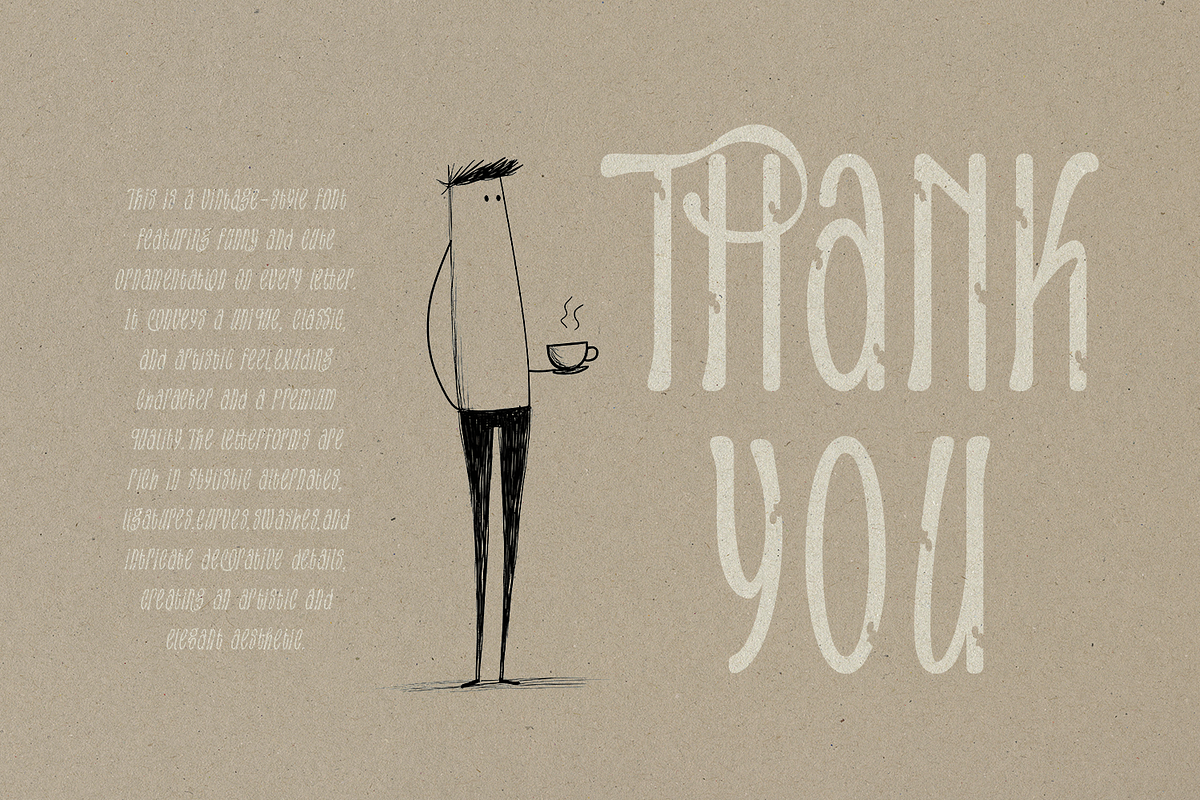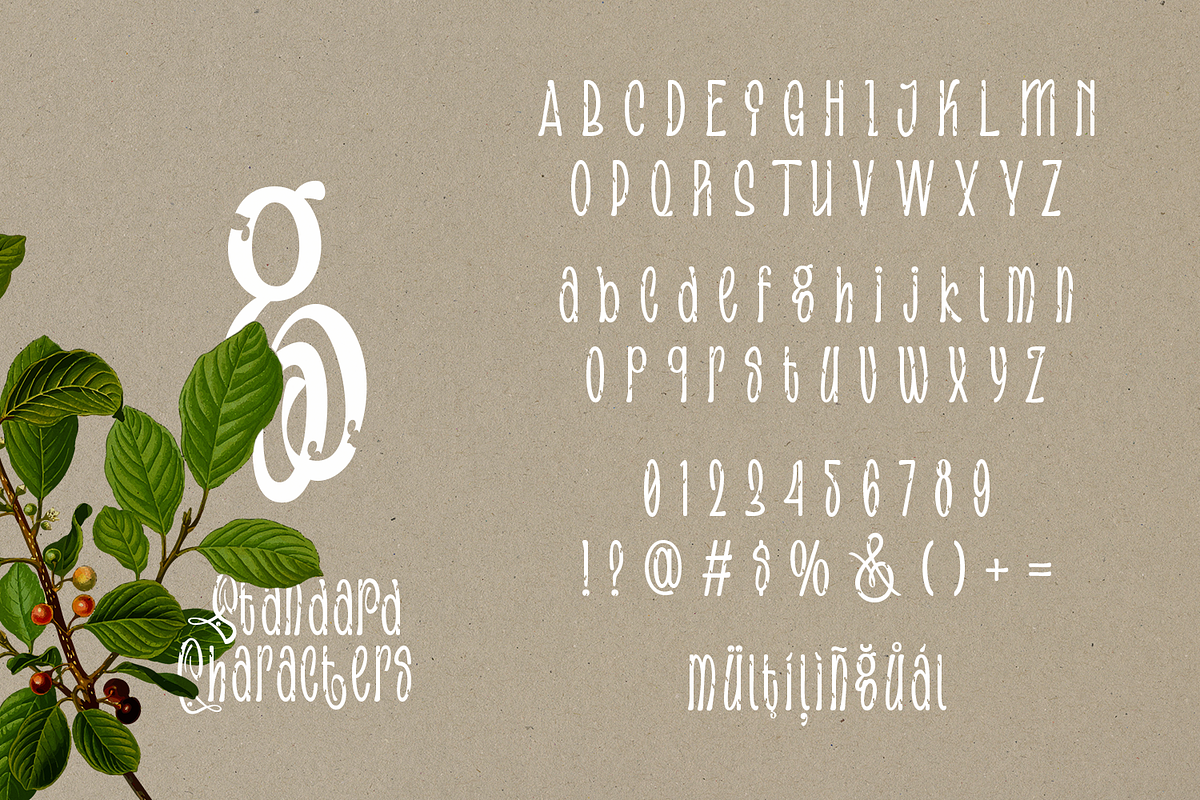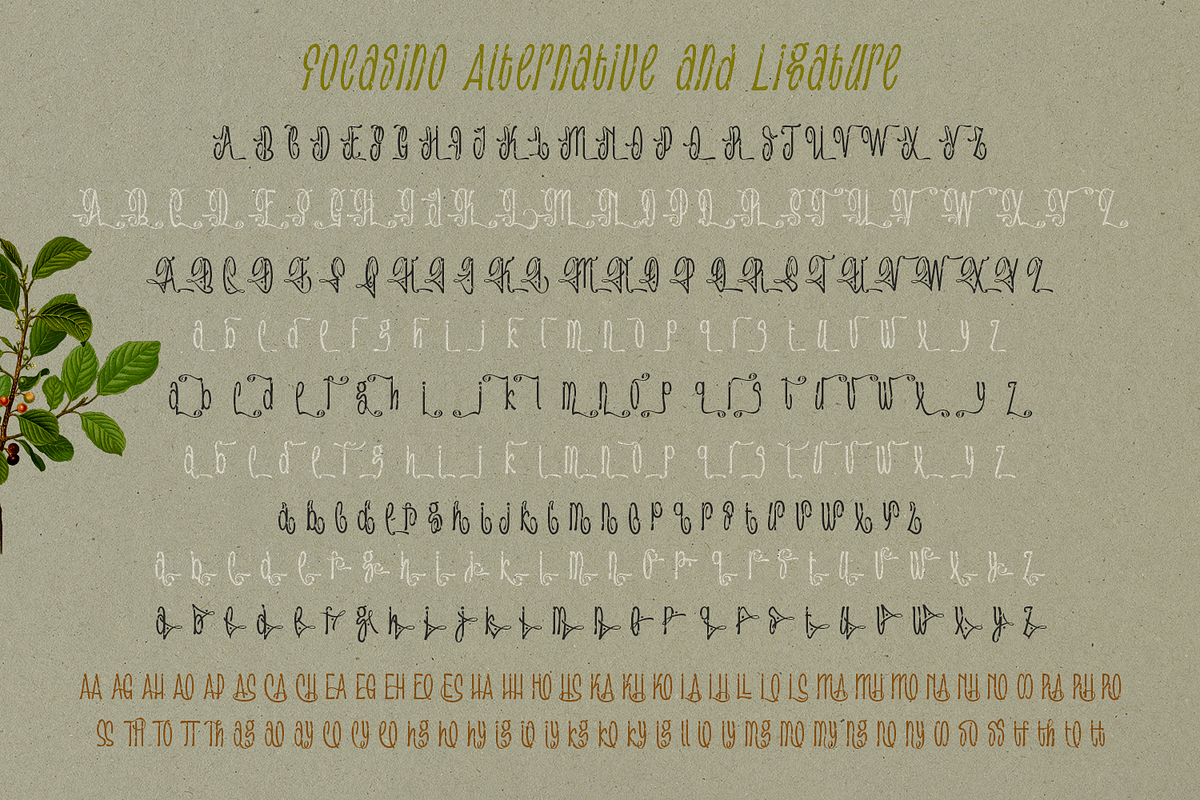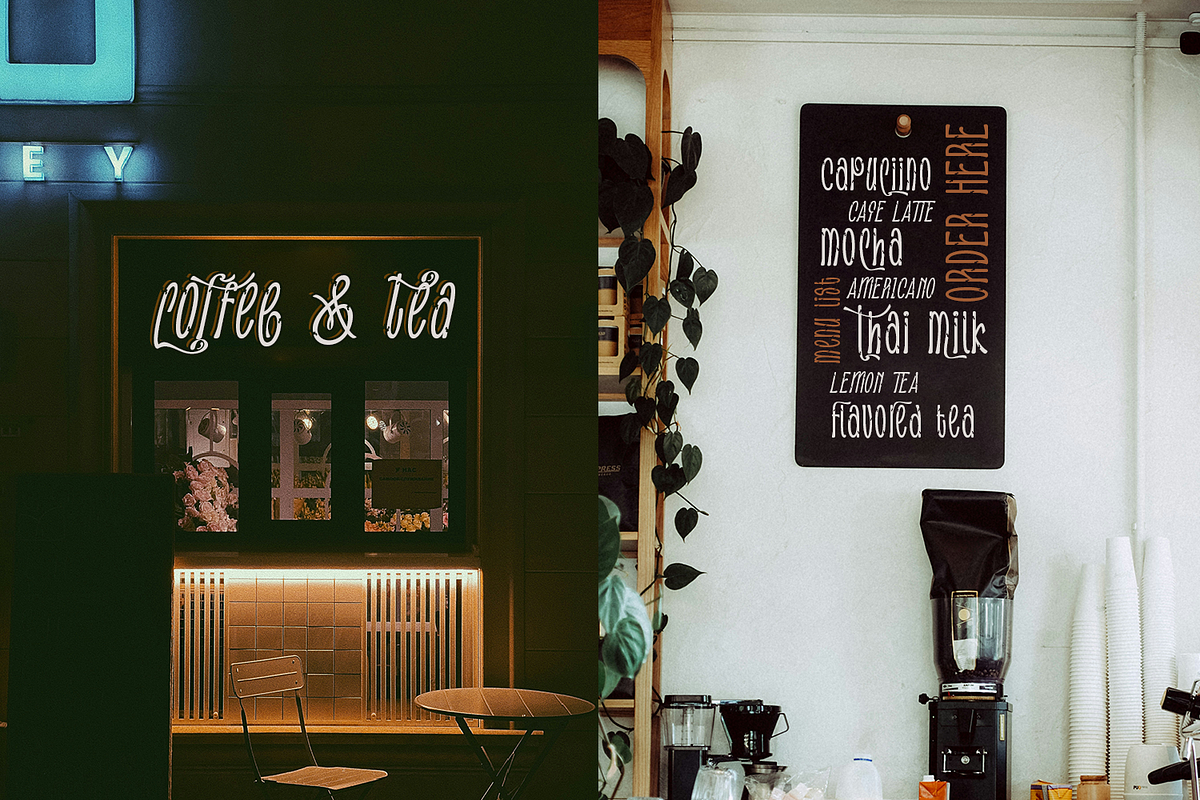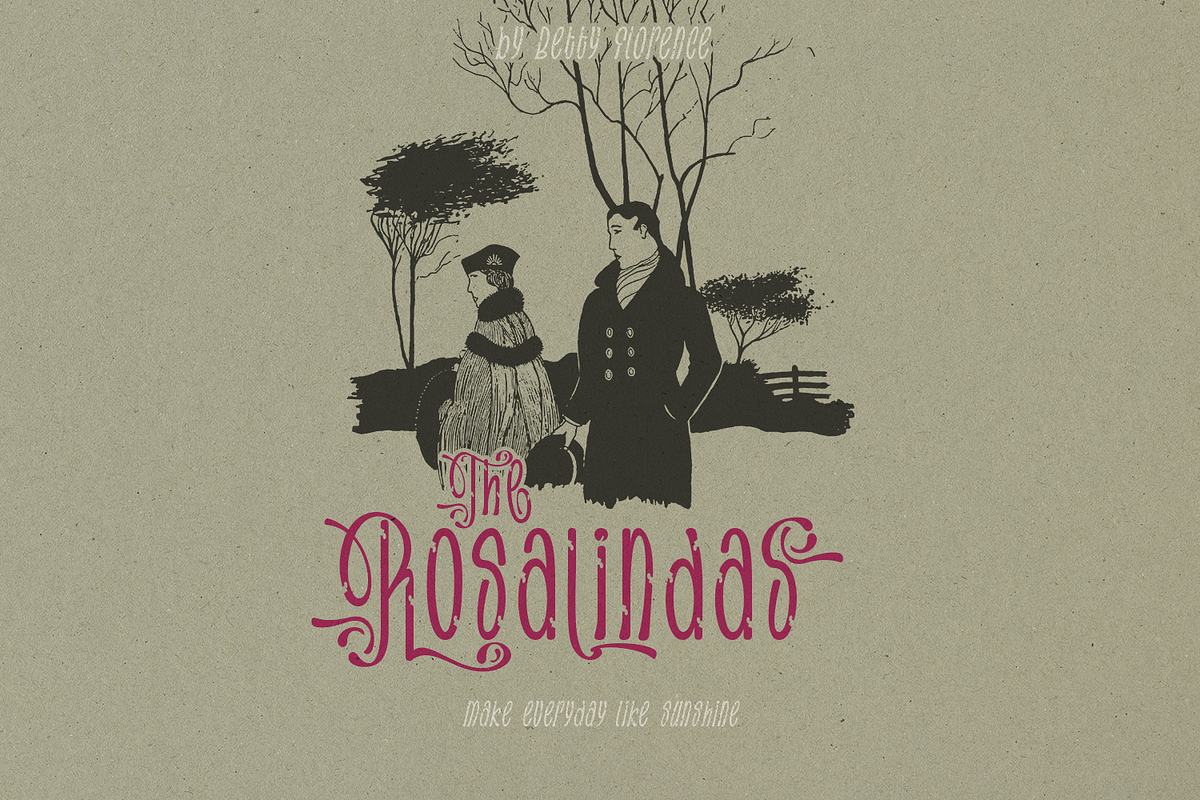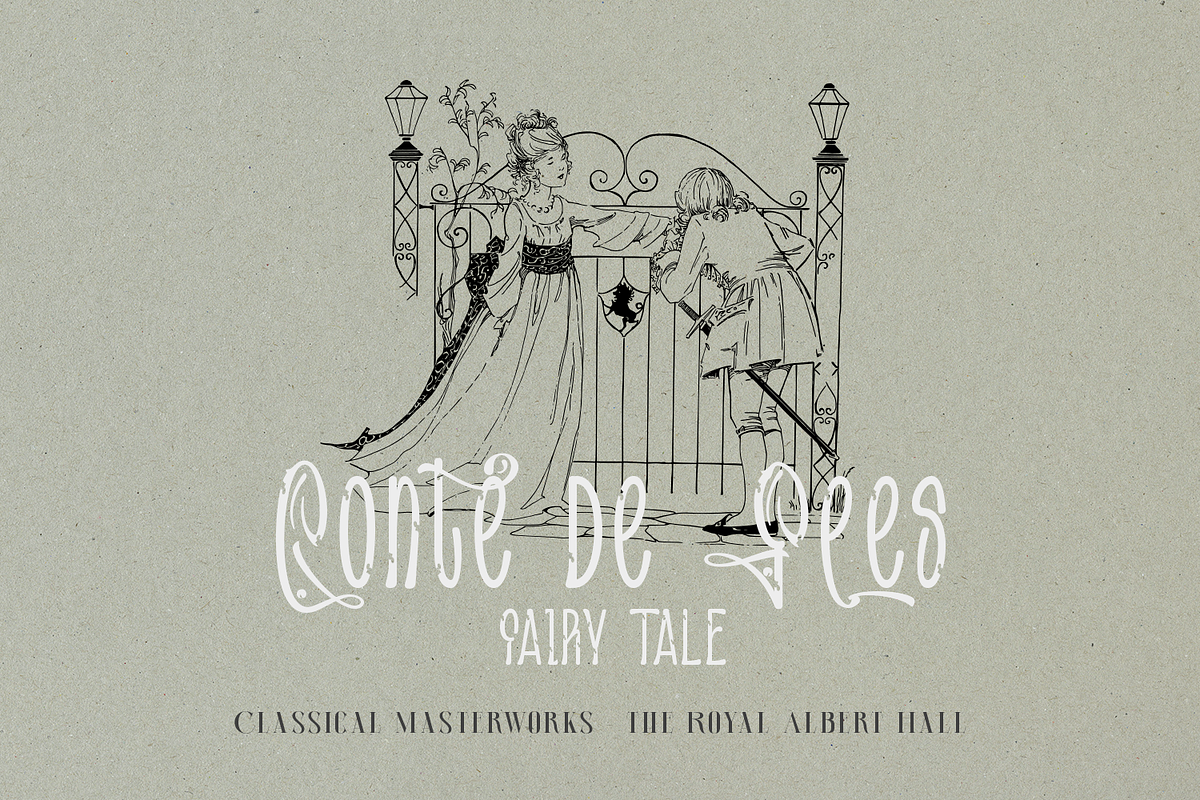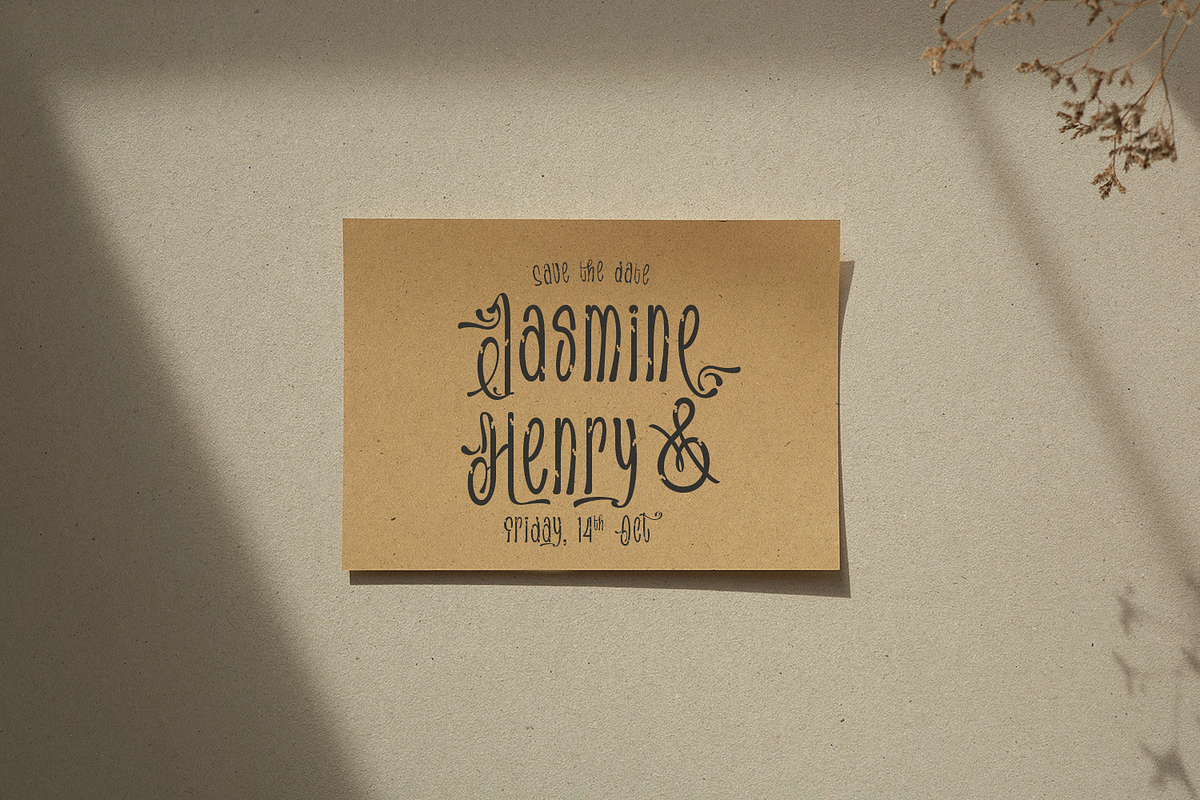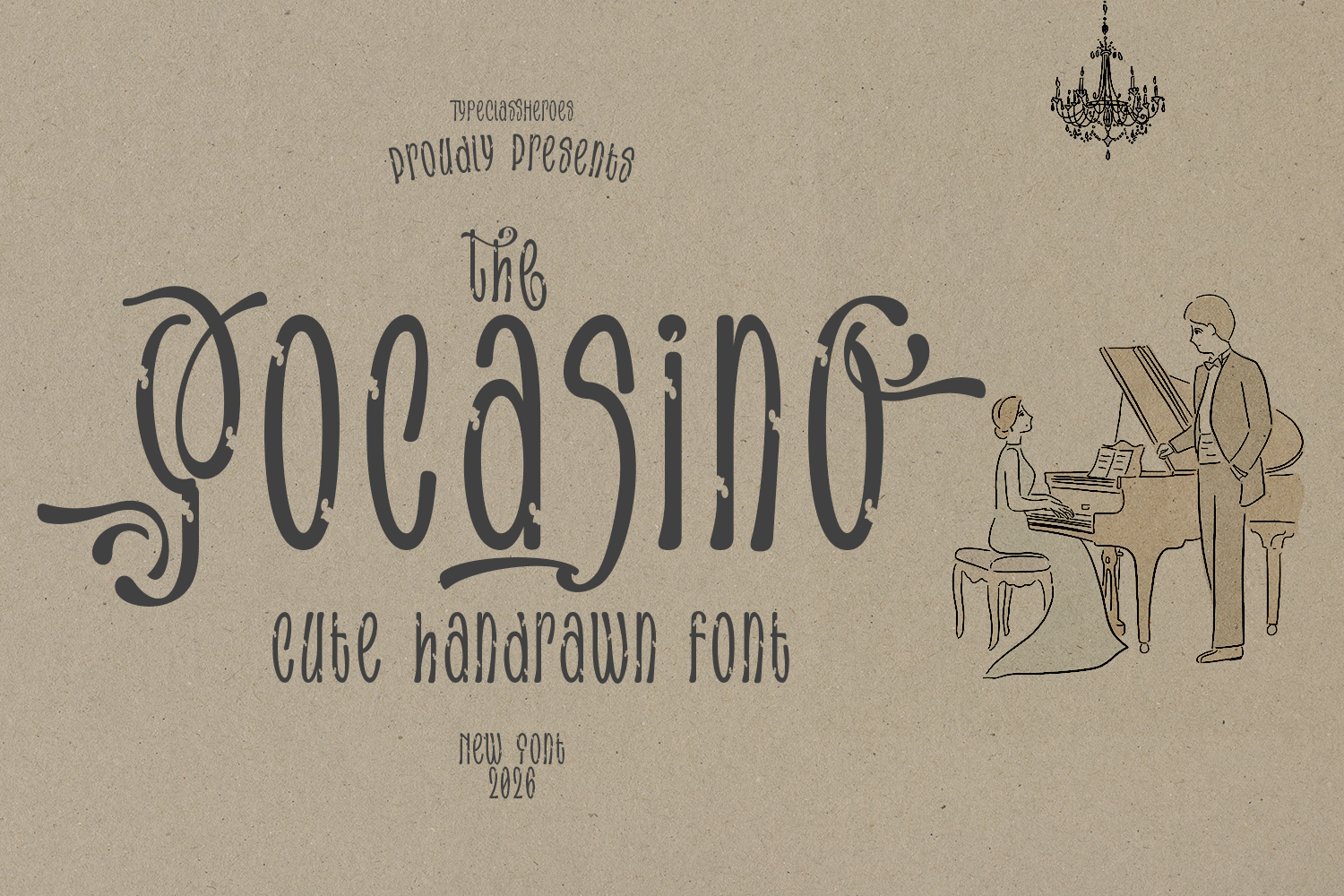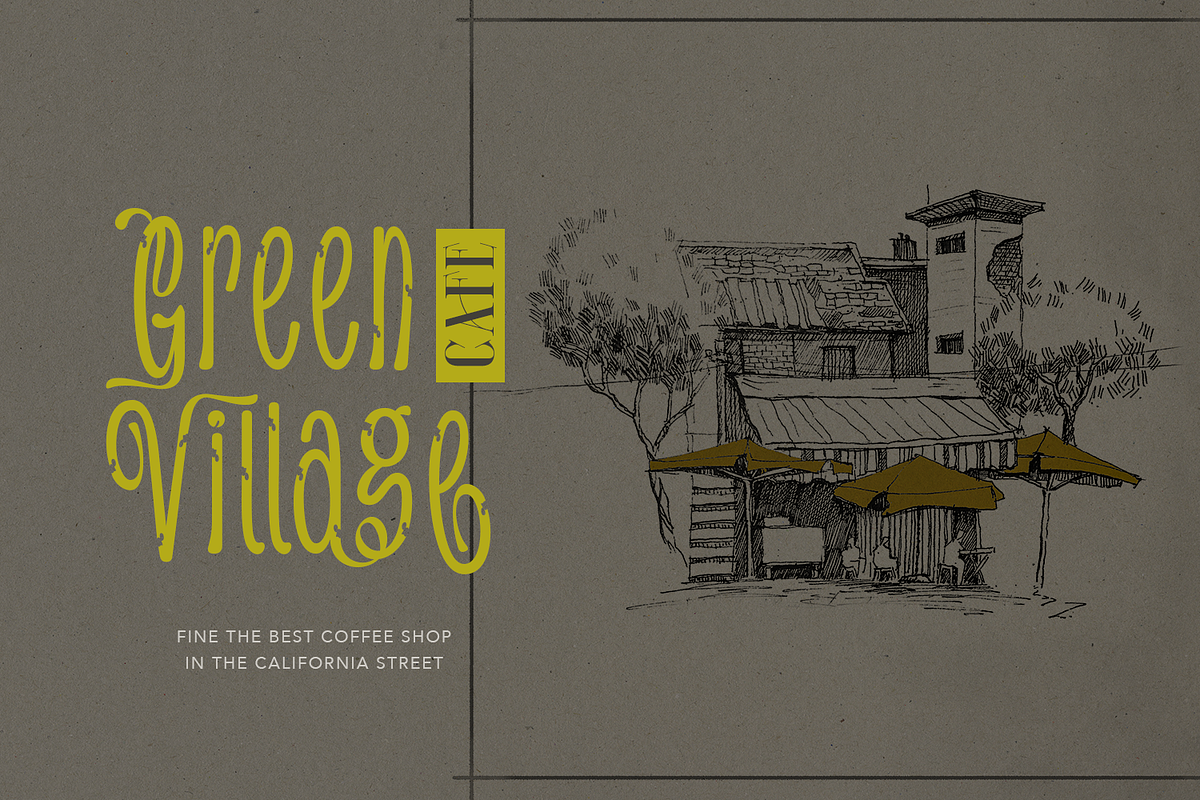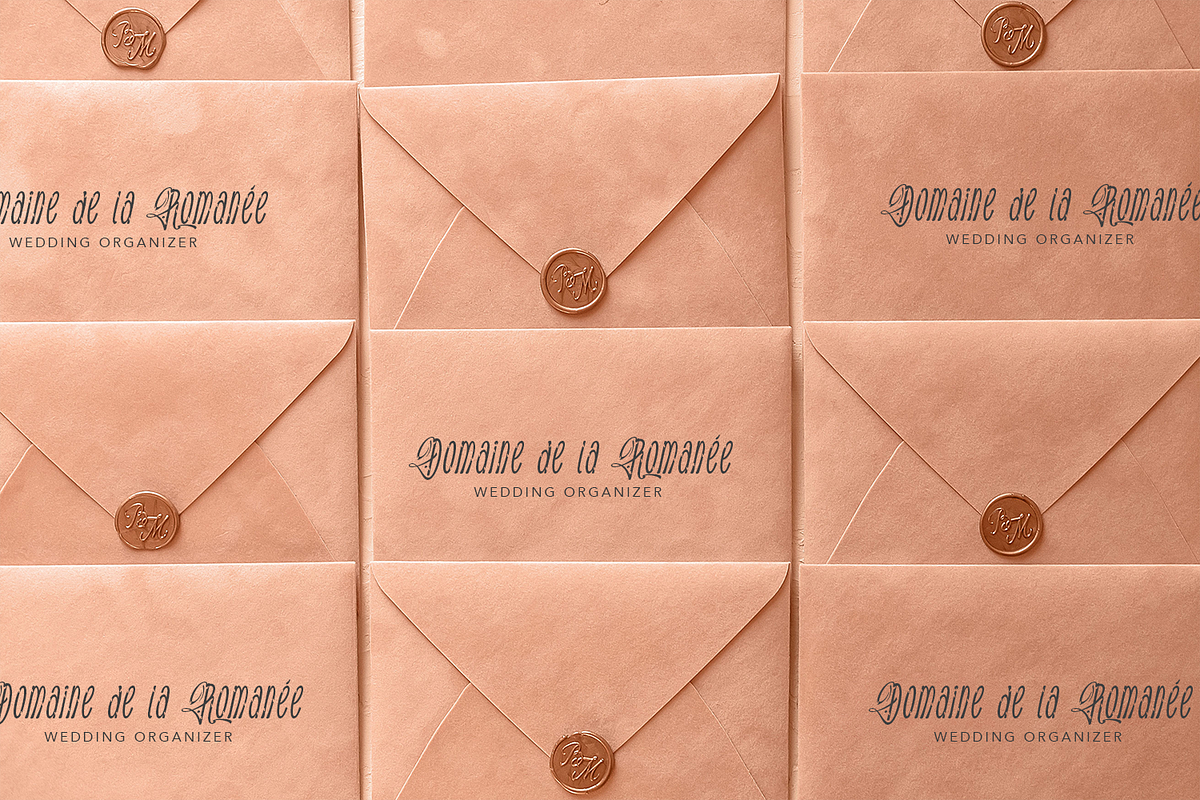
Focasino - Handwritten Font
Introducing Focasino, this is a vintage-style font featuring funny and cute ornamentation on every letter. It conveys a unique, classic, and artistic feel, exuding character and a premium quality. The letterforms are rich in stylistic alternates, ligatures, curves, swashes, and intricate decorative details, creating an artistic and elegant aesthetic.
It is ideally suited for headlines, logos, product packaging, branding, posters, and vintage or aesthetically driven designs. The font is most effective when used at large sizes as a central design element; it enhances visual appeal while reinforcing the brand image, lending it a professional and sophisticated look.